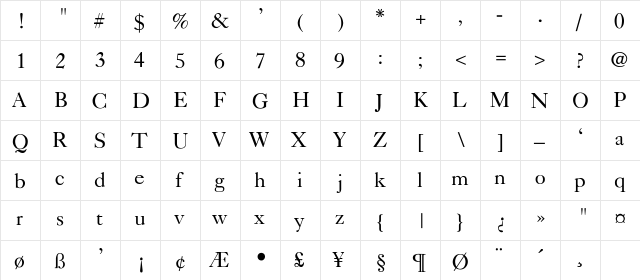
Caslon-Light Regular
Design Context for Caslon-Light Typeface
Caslon-Light offers clean, dependable letterforms without strong stylistic allegiance, making it a practical choice for designers who need flexibility. Its slender proportions lend an understated elegance to any composition.